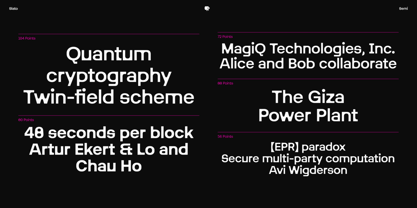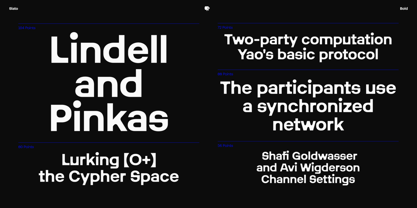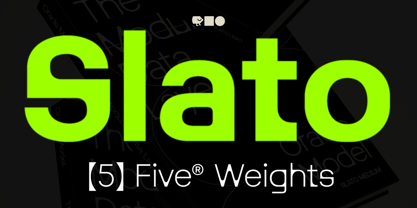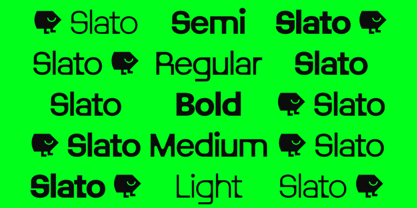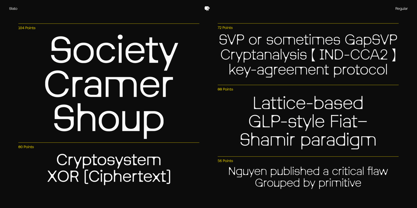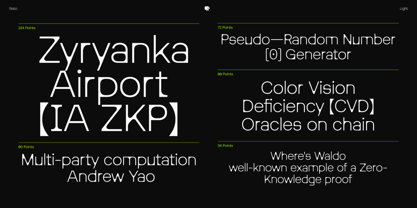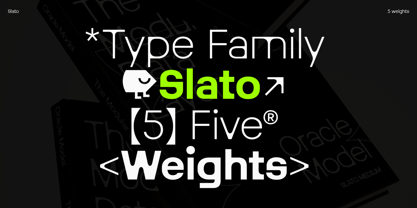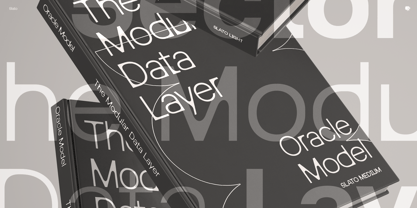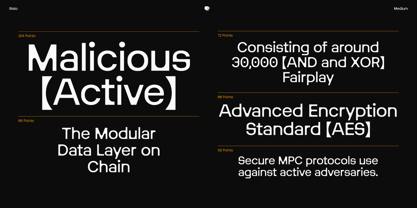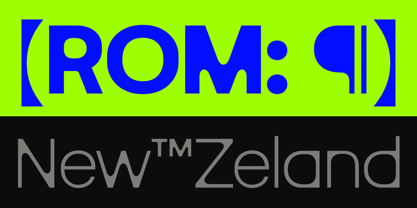
Slato
by TOMO Fonts
The Slato Font Family was designed by TOMO Fonts and published by TOMO Fonts. Slato contains 5 styles and family package options.
SLATO is a modern, versatile typeface characterized by its geometric precision and bold, contemporary aesthetic. Each character is meticulously crafted with clean lines and uniform stroke widths, creating a sleek and consistent look. The font’s bold nature is evident in its strong, confident letterforms, which make a dynamic visual impact. SLATO offers a range of weights from Light to Bold, ensuring adaptability for various applications, from striking headlines to clear body text. Its modern and futuristic appeal, combined with excellent readability and a comprehensive character set, makes SLATO ideal for branding, editorial design, and digital interfaces, bringing a forward-thinking, innovative edge to any project.